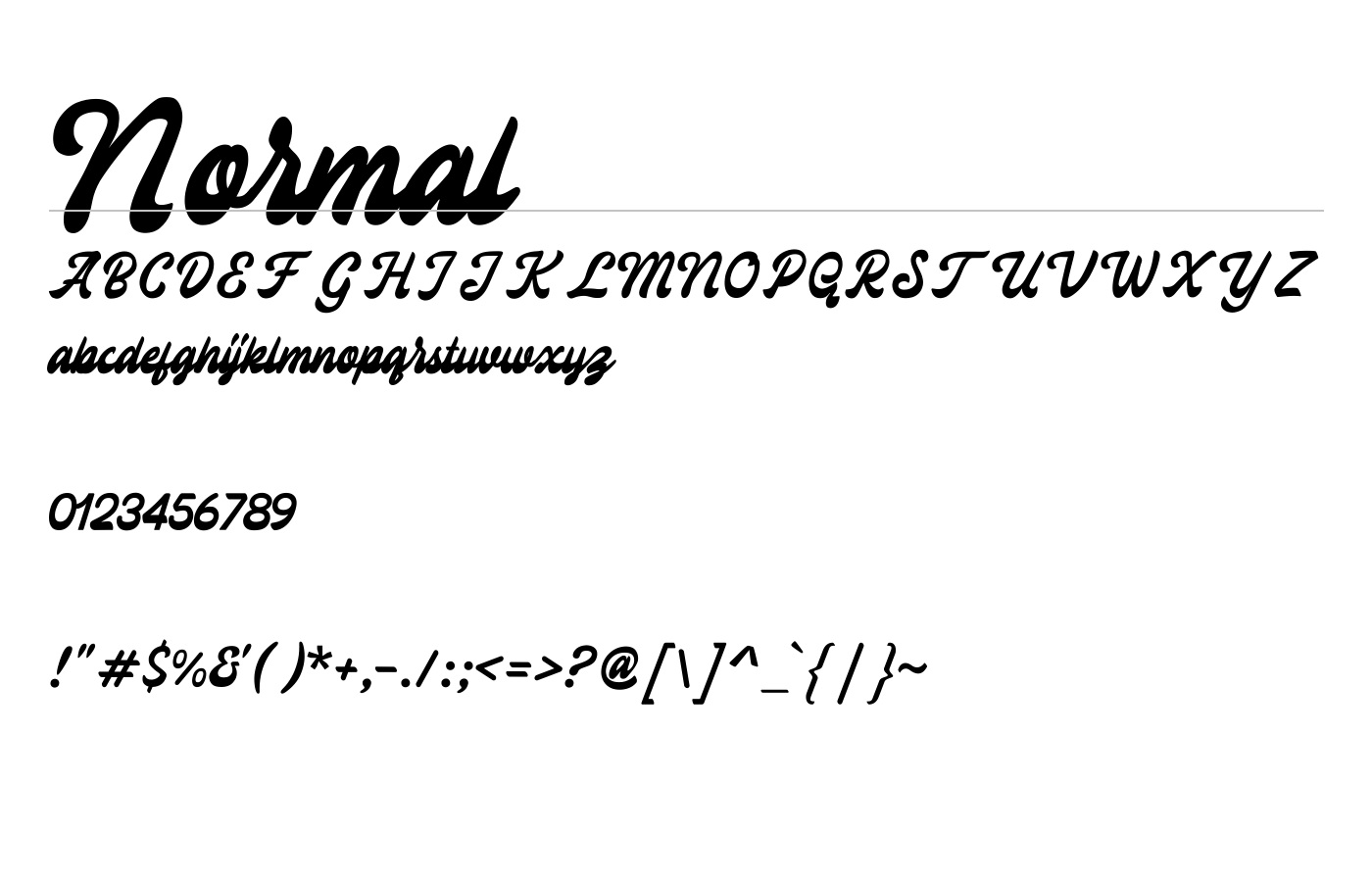
Brillscript Font is a bold, flowing script typeface with an elegant, handwritten style that combines vintage charm and modern flair. Its smooth, connected letterforms with moderate contrast and distinct italic slant make it ideal for logos, invitations, and branding that seek a sophisticated yet approachable feel. This font stands out in creative projects where personality and readability in display use are key.
Brillscript Font
About Brillscript Font